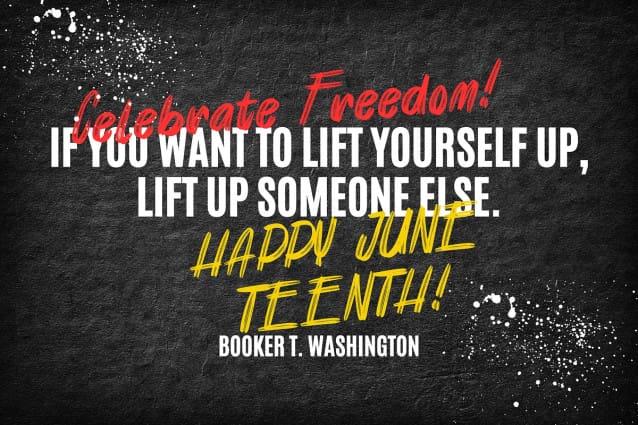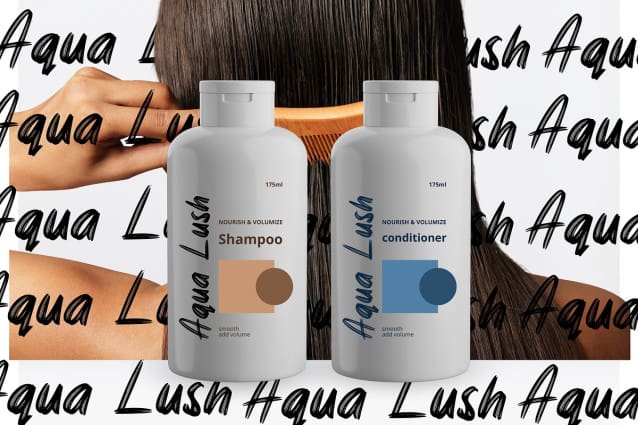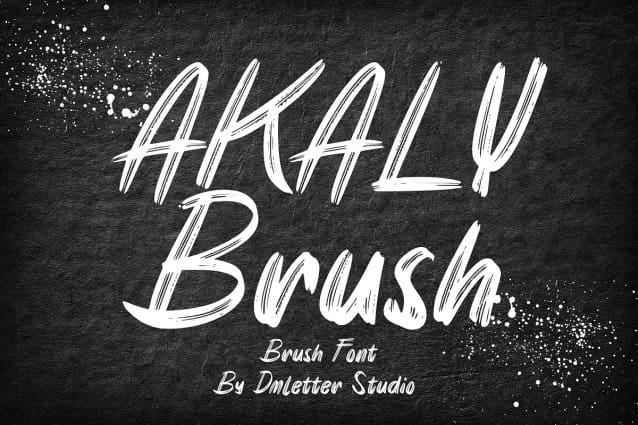
Akaly Brush Font
Akaly Brush Font is a bold and expressive typeface with a handcrafted brushstroke feel. Designed to bring energy and personality to your projects, this font is perfect for branding, posters, social media graphics, packaging, and more. Its natural, textured strokes add an authentic, hand-painted look, making your text stand out with artistic flair. Whether you’re creating edgy street-style designs or elegant handcrafted typography, Akaly Brush Font delivers versatility and impact.